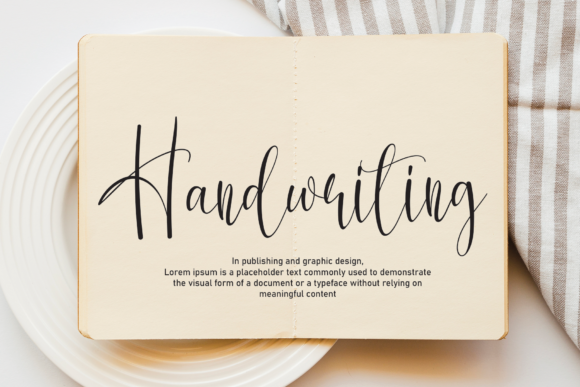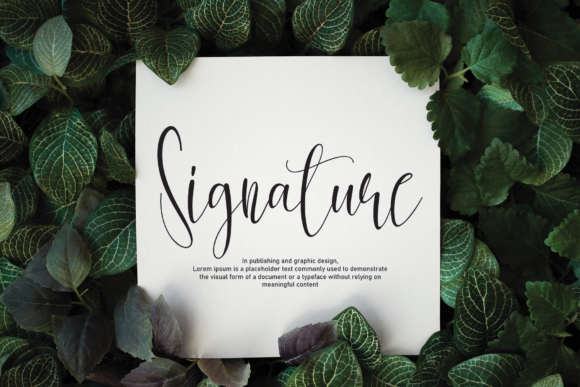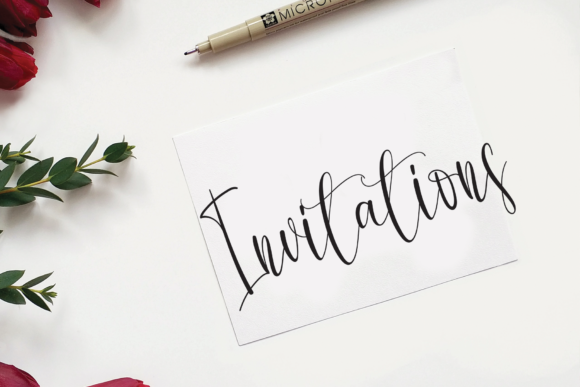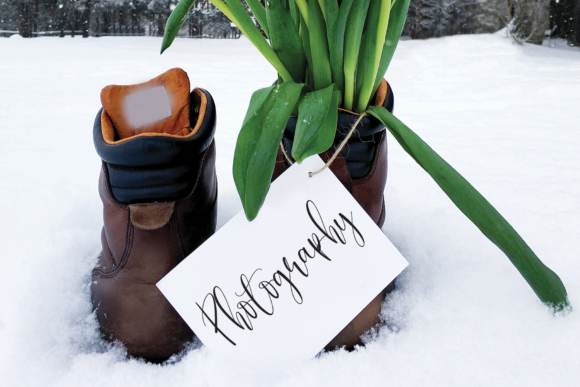
Introducing Christmas Family Font: The Perfect Addition to Your Design Collection
Are you a designer or crafter looking for a unique and creative font to add some festive flair to your projects? Look no further than Christmas Family Font, a modern script font that’s perfect for the holiday season and beyond. In this article, we’ll take a closer look at the features and benefits of Christmas Family Font, and explore the many ways you can use it to elevate your designs.
What is Christmas Family Font?
Christmas Family Font is a creative script font that’s designed to bring a touch of elegance and sophistication to your designs. With its modern and flowing lines, this font is perfect for creating beautiful and eye-catching text that will capture the attention of your audience. Whether you’re designing invitations, product packaging, or social media graphics, Christmas Family Font is the perfect choice.
Key Features of Christmas Family Font
So what sets Christmas Family Font apart from other fonts? Here are just a few of its key features:
- Unique and Creative Design: Christmas Family Font features a unique and creative design that’s perfect for adding a touch of personality to your projects.
- Modern and Flowing Lines: The font’s modern and flowing lines give it a sophisticated and elegant feel that’s perfect for a wide range of design applications.
- Highly Versatile: Christmas Family Font is highly versatile, making it perfect for use in a wide range of design projects, from invitations and product packaging to social media graphics and more.
- Easy to Read: Despite its creative and artistic design, Christmas Family Font is still highly legible and easy to read, making it perfect for use in body text and other applications where readability is key.
Ways to Use Christmas Family Font
So now that we’ve covered the features and benefits of Christmas Family Font, let’s take a look at some of the many ways you can use it in your designs. Here are just a few ideas to get you started:
- Invitations: Use Christmas Family Font to create beautiful and elegant invitations for weddings, parties, and other special events.
- Product Packaging: Add a touch of personality to your product packaging with Christmas Family Font, perfect for labeling gifts, products, and more.
- Quotes and Graphics: Use Christmas Family Font to create inspiring and eye-catching quotes and graphics for social media and other applications.
- Product Design: Incorporate Christmas Family Font into your product design, perfect for creating custom products such as mugs, t-shirts, and more.
- Crafter and Maker Projects: Use Christmas Family Font to add a personal touch to your crafter and maker projects, such as labels, tags, and other embellishments.
- Labels and Tags: Create custom labels and tags with Christmas Family Font, perfect for labeling gifts, products, and more.
- Photography and Watermarks: Use Christmas Family Font to create custom watermarks and overlays for your photography and other visual designs.
- Logos and Branding: Incorporate Christmas Family Font into your logo and branding design, perfect for creating a unique and memorable visual identity.
Tips for Using Christmas Family Font
Here are a few tips for getting the most out of Christmas Family Font:
- Experiment with Different Sizes and Colors: Don’t be afraid to experiment with different sizes and colors of Christmas Family Font to find the perfect look for your design.
- Pair with Other Fonts: Consider pairing Christmas Family Font with other fonts to create a unique and visually interesting design.
- Use in Combination with Images: Use Christmas Family Font in combination with images and other visual elements to create a beautiful and eye-catching design.
Christmas Family Font is a versatile and creative script font that’s perfect for designers and crafters looking to add a touch of elegance and sophistication to their projects. With its modern and flowing lines, highly legible design, and wide range of uses, Christmas Family Font is the perfect addition to any design collection. Whether you’re designing invitations, product packaging, or social media graphics, Christmas Family Font is sure to become a favorite font in your arsenal.